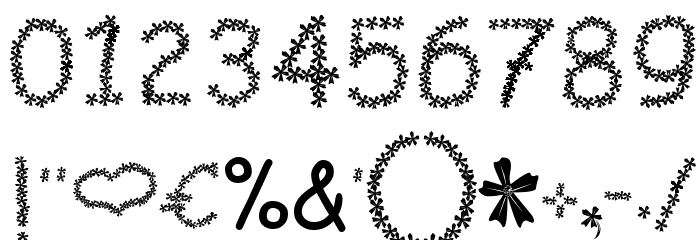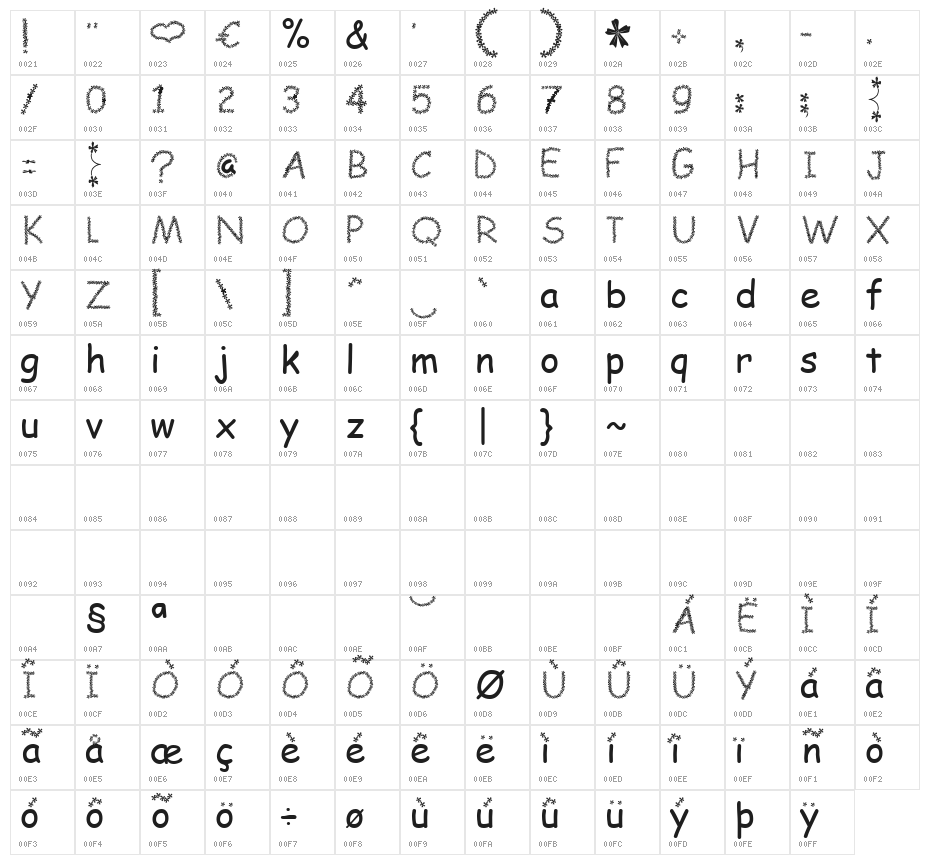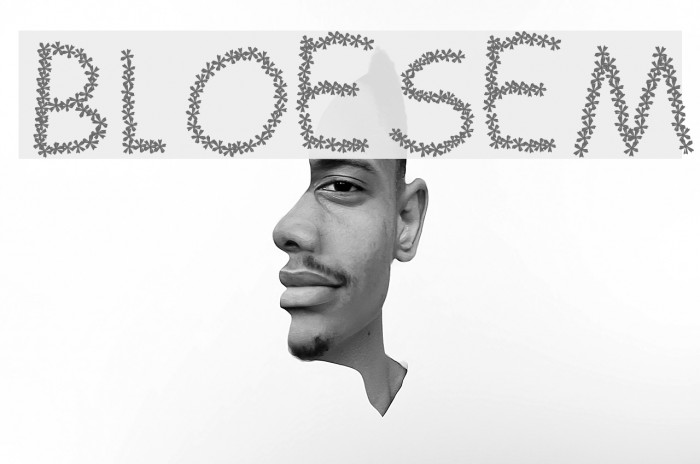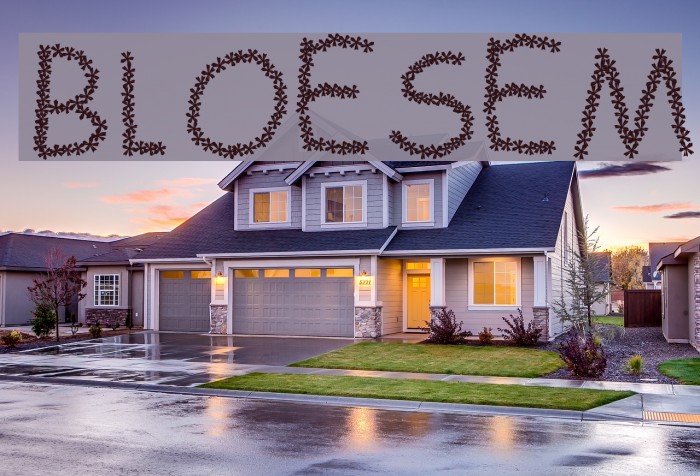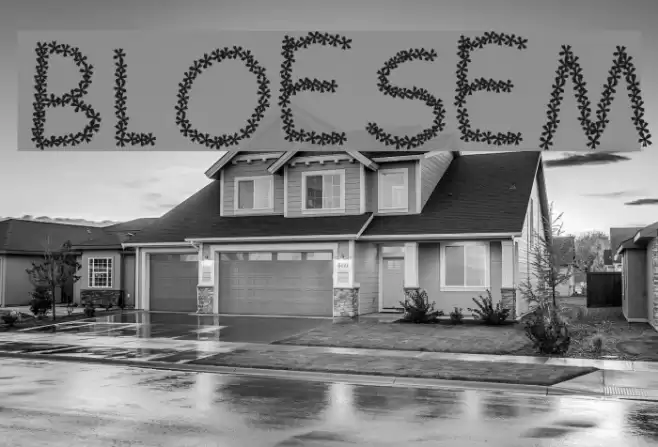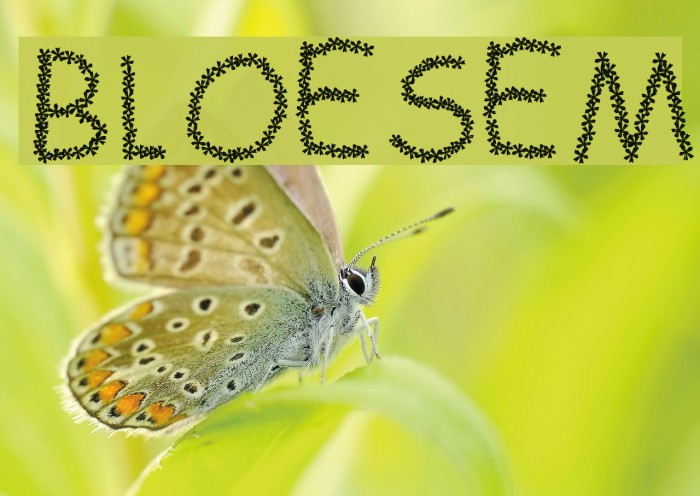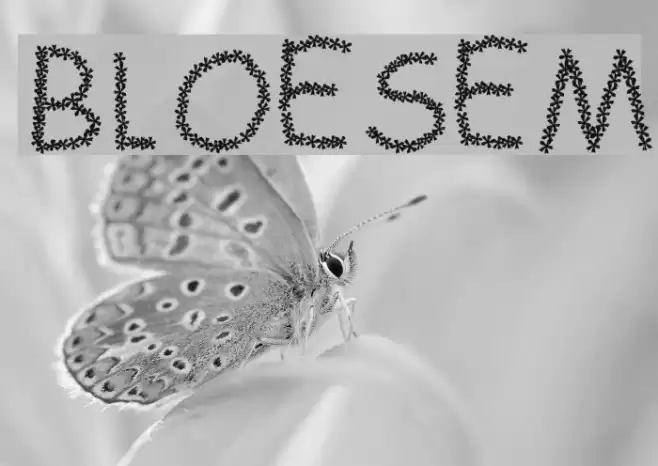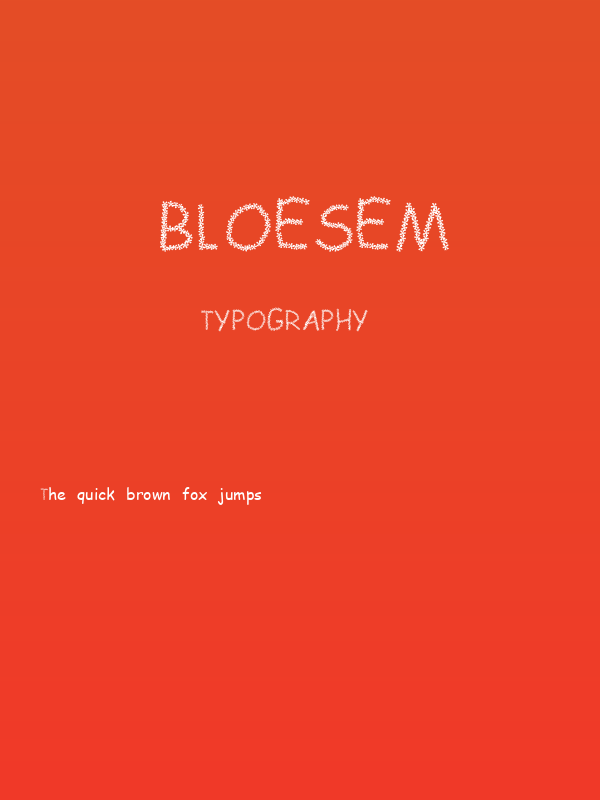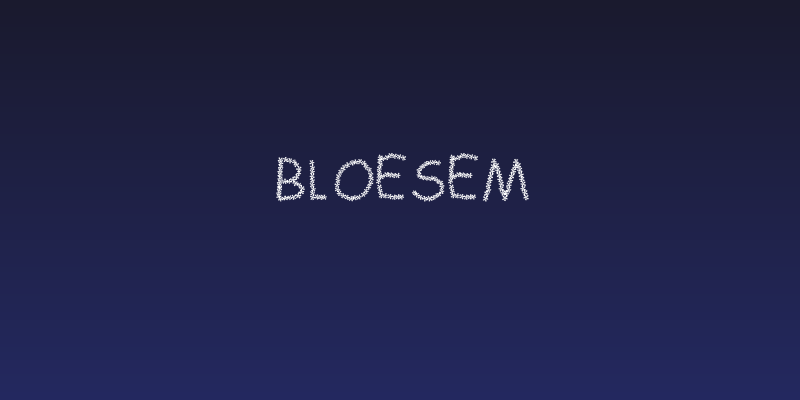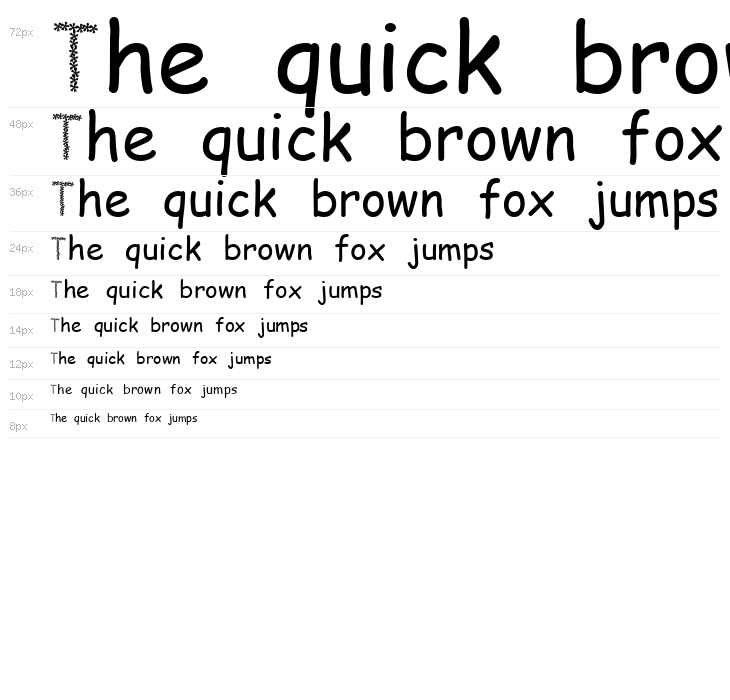
BLOESEM Font
BLOESEM Description
This font features a playful and decorative style, with uppercase letters adorned with small floral patterns, creating a whimsical and organic feel. The lowercase letters are smooth and rounded, providing a friendly and approachable appearance. The numerals also incorporate the floral motif, maintaining consistency across the character set. Special characters are similarly styled, adding to the cohesive design. This font's unique blend of decorative elements and clean lines makes it suitable for creative and artistic projects.